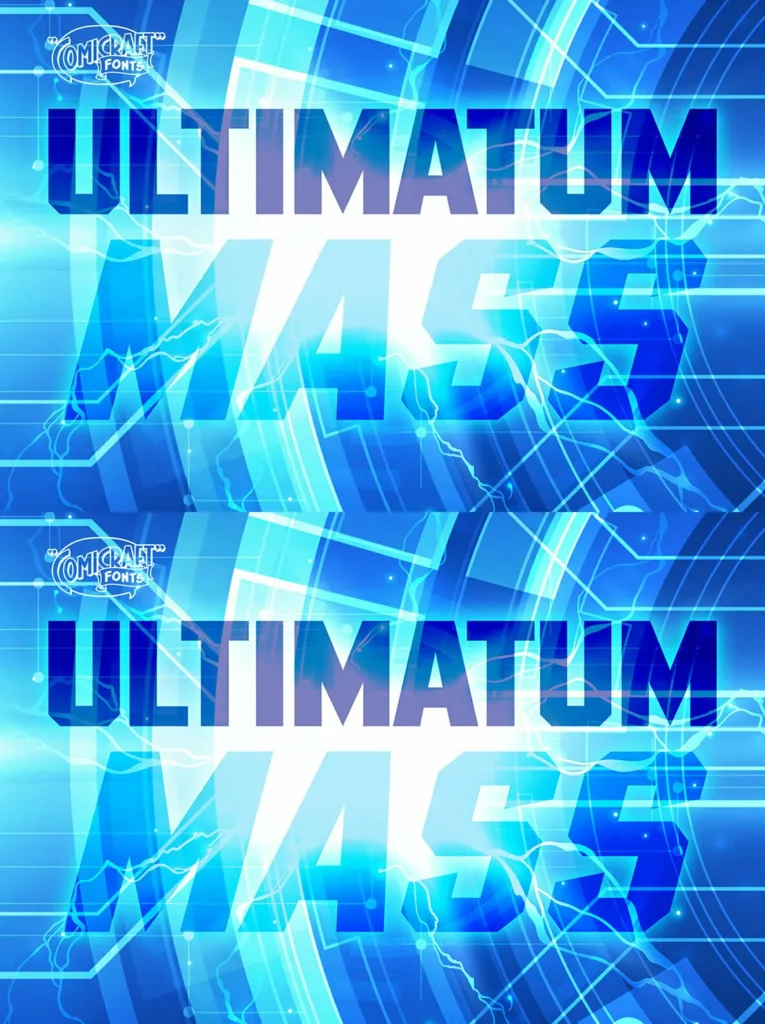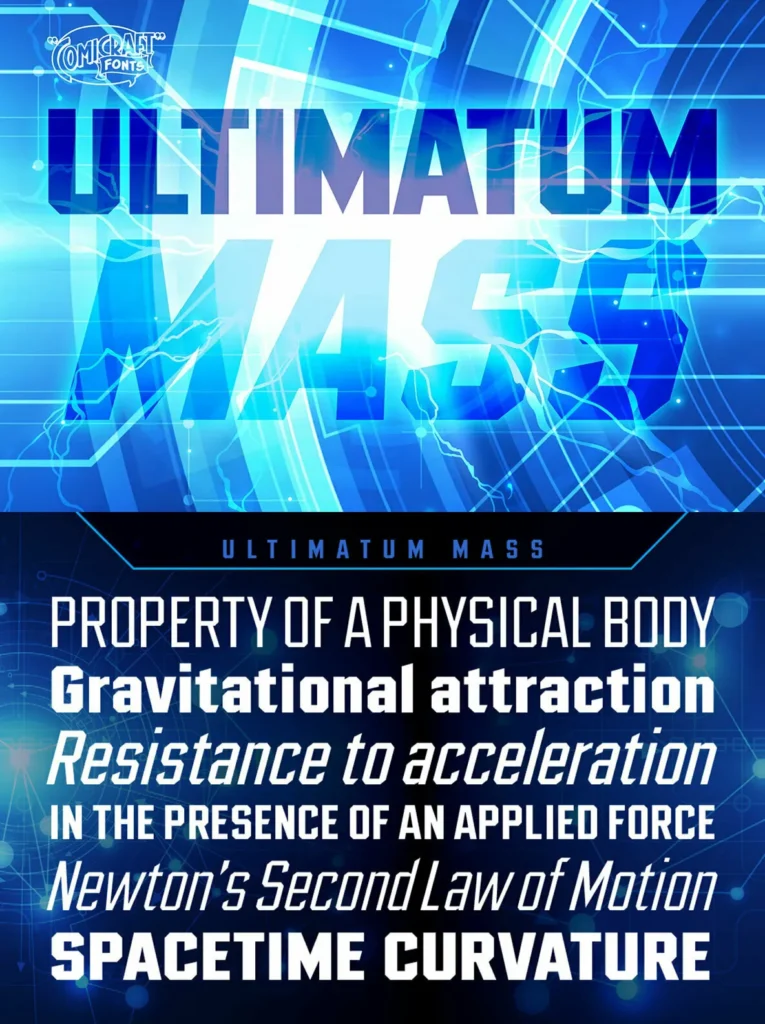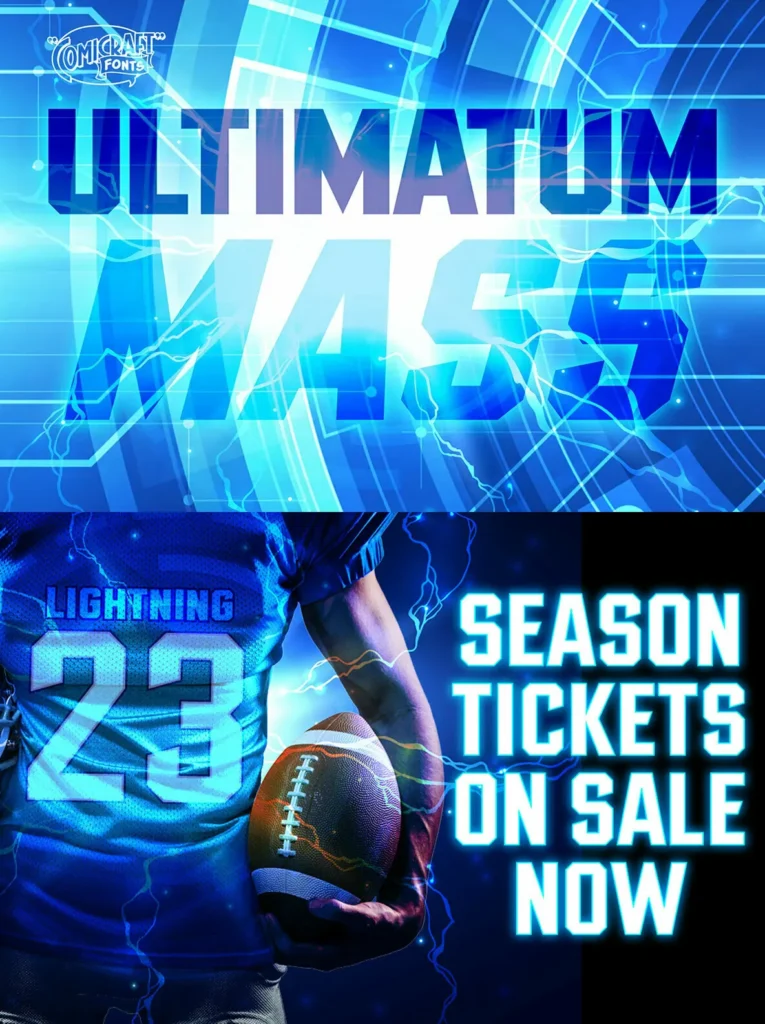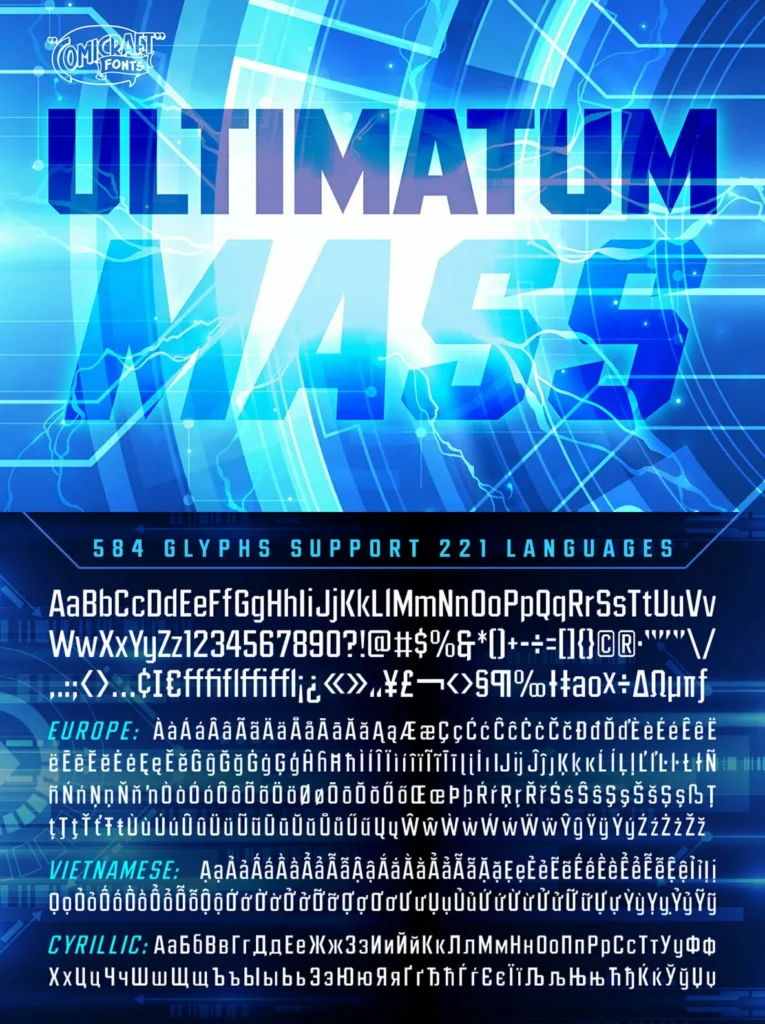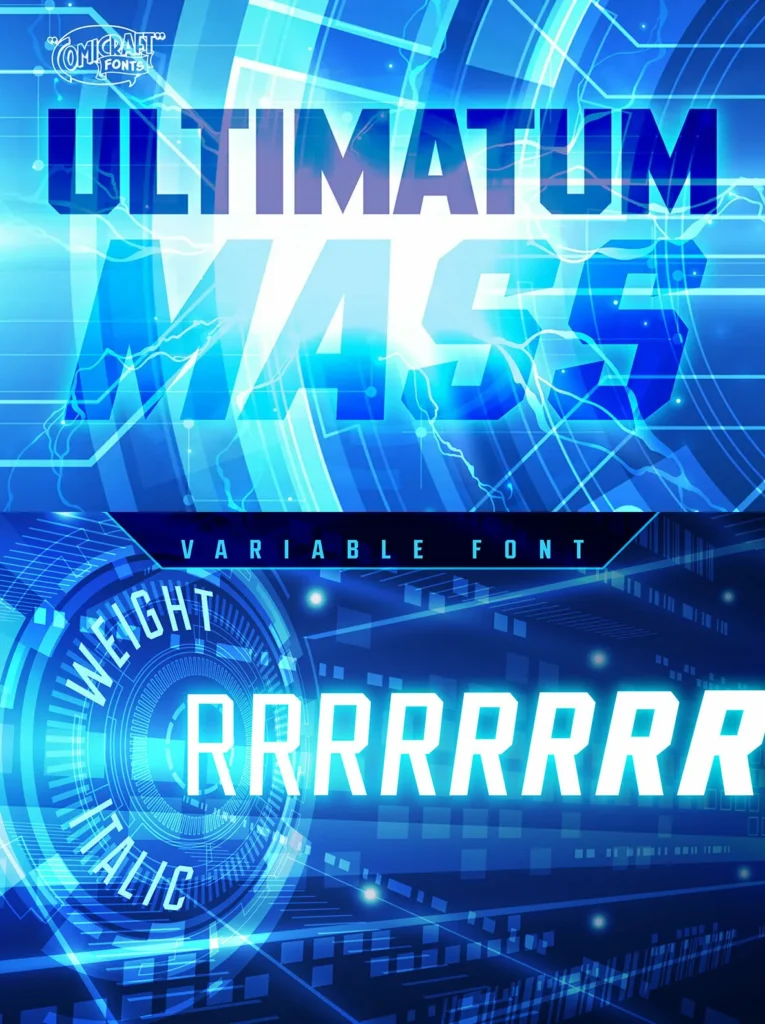
Ultimatum Mass: Kinetic Corners, Comic Authority
Comicraft’s mad font scientist john roshell and lead lab assistant drewes mc farling apply an unstoppable force to the immovable Ultimatum, splitting it into a family of three fonts. The result keeps the bold, action-ready attitude while offering distinct takes for different layout demands, from tight headline work to graphic lettering that needs clear direction.
Here’s the secret formula: Mass retains the dynamic details of the original with flat, angled corners; Force cooperates with your demands for a vertical slice of the action; and Velocity was tired of waiting for a compromise and cut right across its horizontals. Ultimatum Mass features eight weights with support for 221 languages including Western & Central Europe, Vietnamese & Cyrillic. The variable font provides precise control of weight & italic slant.